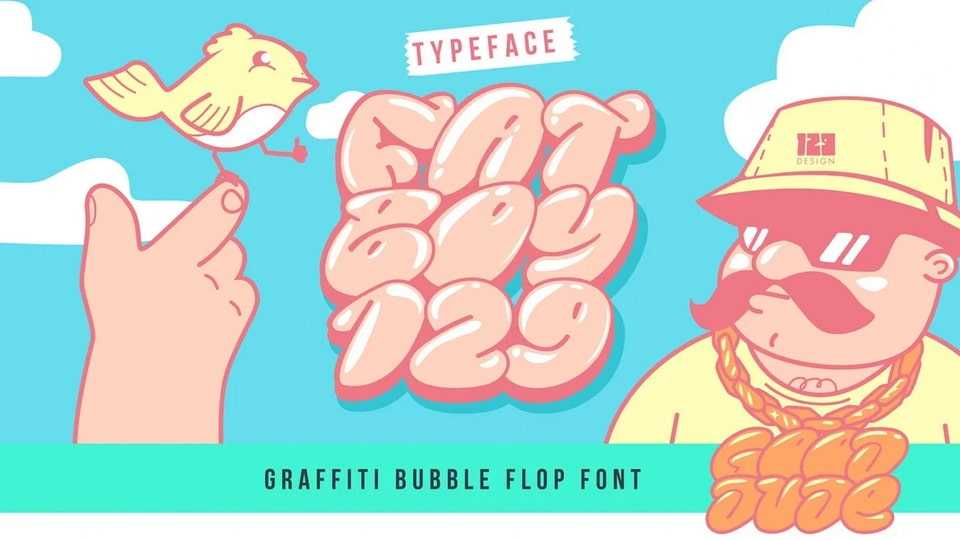
Download Fatboy 129 font, a bold graffiti bubble typeface that flops, pops, and oozes with character. Inspired by old-school street art and hip-hop vibes.